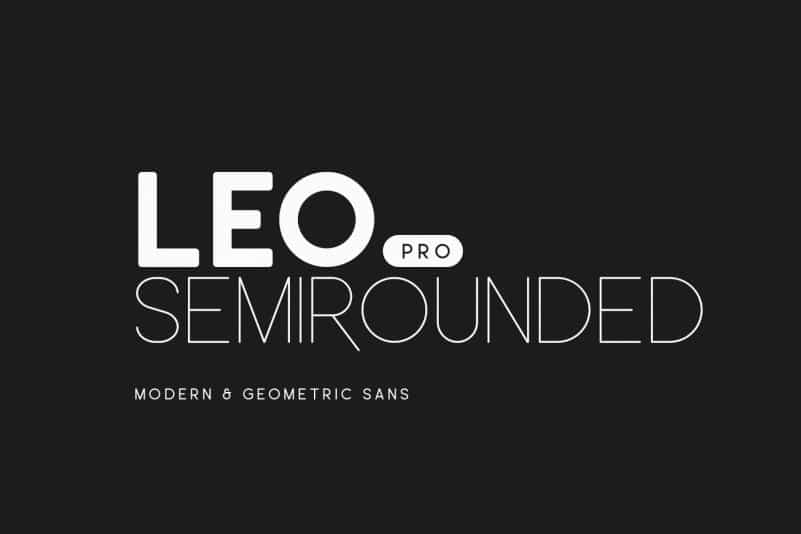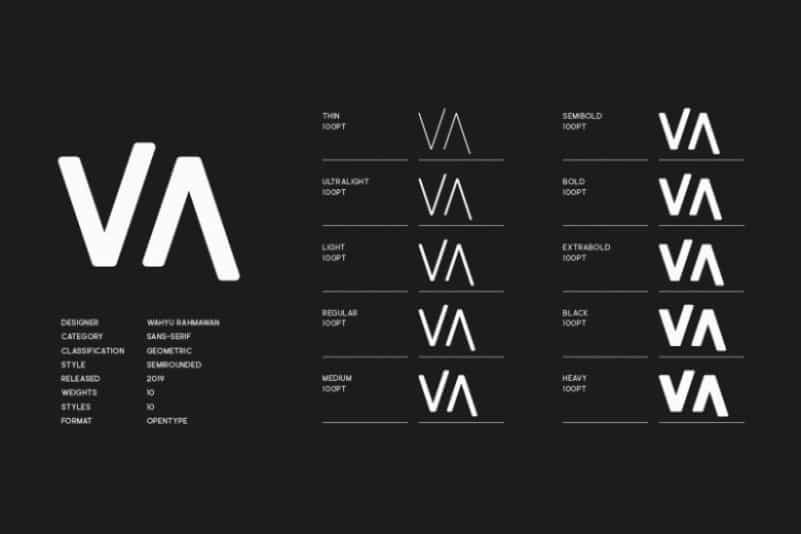
Discover Leo Semi Rounded Pro Font, part of the Sans Serif collection—a versatile and unique font perfect for adding a personal touch to your projects. Download it for free and enjoy crafting designs with style, from invitations to social media posts. This font is available exclusively for personal use, giving you the freedom to create without limits. Unlock your creativity with Leo Semi Rounded Pro Font today!
Incepted of the new in-house typeface – the Semi Rounded Font Family. Boldore Semi Rounded Pro is the second branch of Boldore family, a humanistic sans serif with some geometrical elements and semi round corners. It has 10 weight manipulating feature, clean and modern cap structure which all help to make different style. This is done with harmonic and powerful opentype characteristics in mind. Each weight it’s shipping with a translated language, currency and lots more.